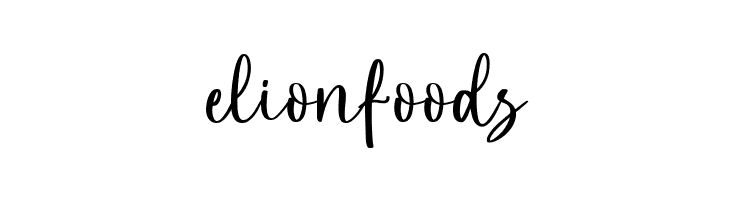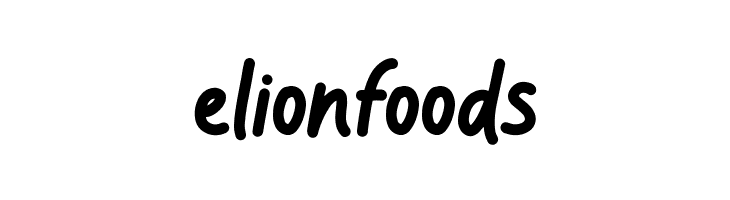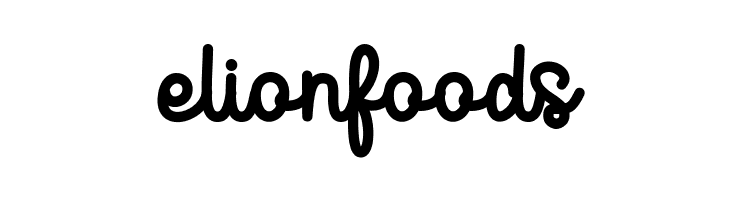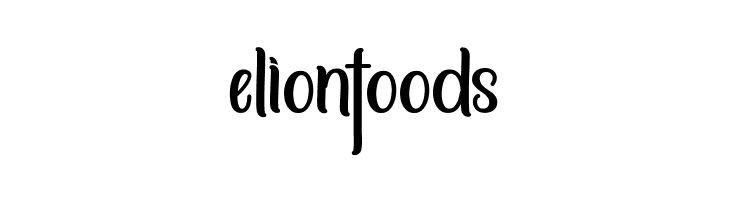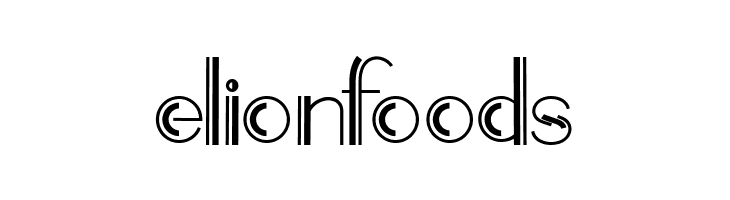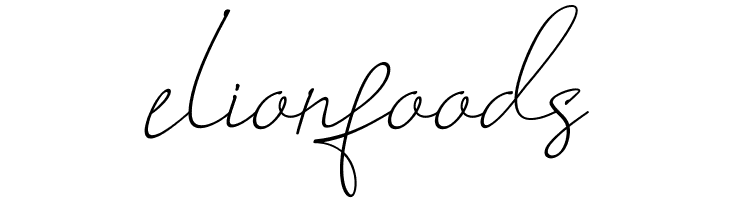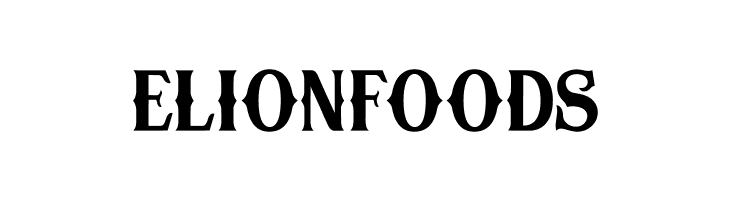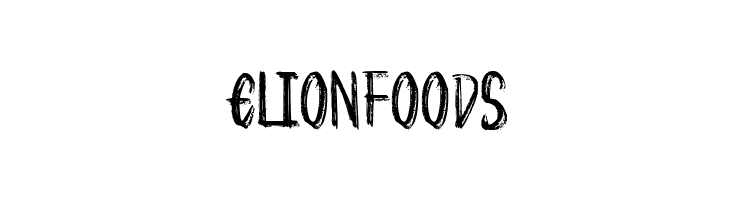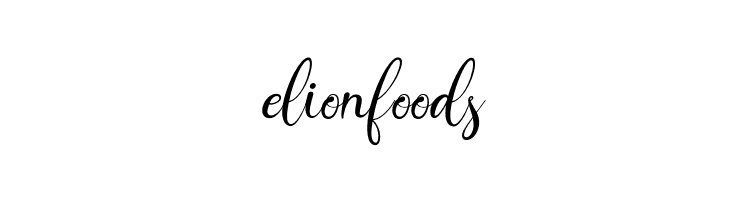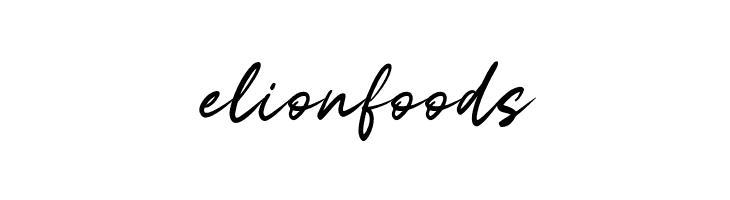
• Canasita
A whimsical, handwritten font with thin, elongated characters and a playful elegance.
• Desita
An elegant, flowing script font with smooth, cursive letterforms and decorative flourishes.
• Stay Positive
A playful, handwritten font with a casual and friendly vibe.
• Eversthedin-Personal Use Only
A decorative font with a blend of modern and classic elements, featuring dynamic and artistic strokes.
• Ersita
A playful and whimsical script font with smooth, flowing lines and rounded edges.
• Sittella
A playful, handwritten-style font with tall, narrow characters and a dynamic slant.
• Asittany Script Regular
A graceful and flowing script font with elegant, continuous strokes.
• Taylorsit Italic
• Biolina Larasita - Personal Use
A playful and elegant handwritten font with decorative loops and smooth curves.
• LAROSH Sithal Sans Serif
A modern, geometric font with clean lines and a minimalist aesthetic.
• LAROSH Sithal Signature
A sophisticated script font with elegant, flowing cursive strokes.
• Arsitage Free Regular
A dynamic and expressive script font with fluid, sweeping strokes.
• Religiosity
A playful, handwritten font with bold, rounded strokes and a casual vibe.
• Inquisitive
A playful, hand-drawn font with tall, narrow letters and a whimsical style.
• Positive Attitude
A playful, handwritten font with tall, narrow letters and a casual style.
• Supposition
A tall, slender, and modern font with a sleek and elegant appearance.
• Herosita
A bold, blackletter-inspired font with ornate serifs and dramatic flair.
• Sweet Disposition
A bold, brush-style font with a hand-drawn, artistic appearance.
• Alesa Sitha
An elegant, cursive font with flowing, decorative strokes.
• MorisitaFREE
An elegant script font with flowing, graceful curves and ornate flourishes.
• Morisita FREE
An elegant script font with flowing, decorative swashes and a modern calligraphic style.